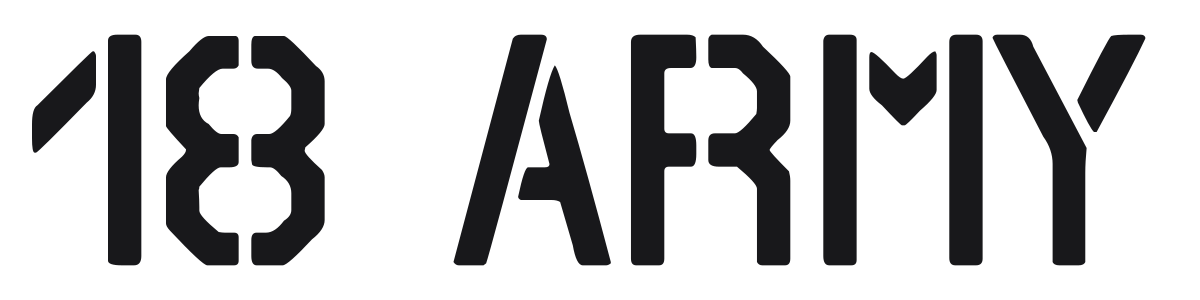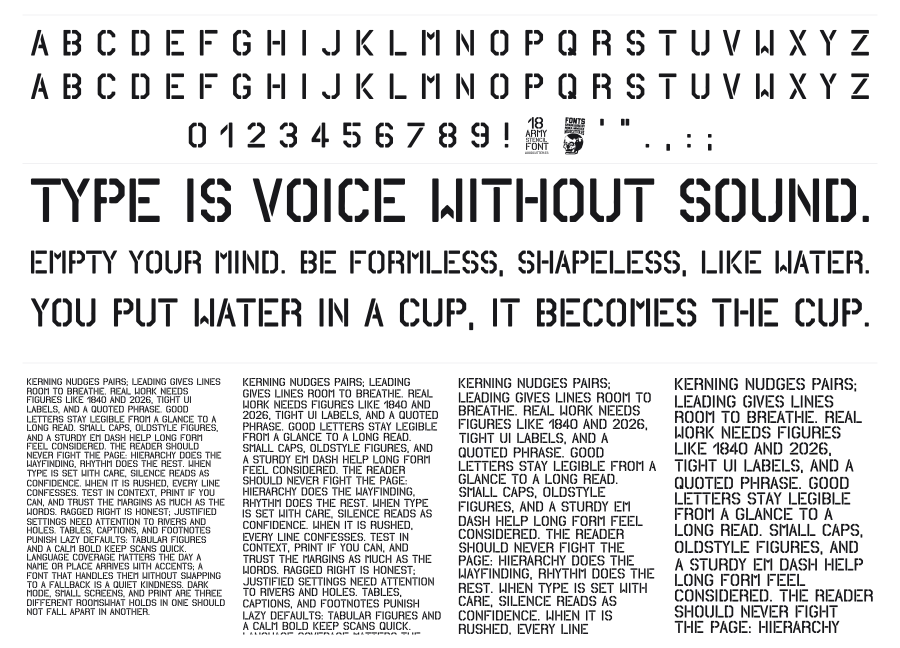
18 Army
18 Army is a bold military stencil font from Woodcutter Manero, built on wide geometric sans-serif construction with authentic cut gaps at letter junctions. The heavy, blocky forms reference the stenciled markings found on crates, vehicles, and uniforms throughout 20th-century warfare. It carries that no-nonsense, spray-painted authority that works hard in posters, game titles, and streetwear branding.